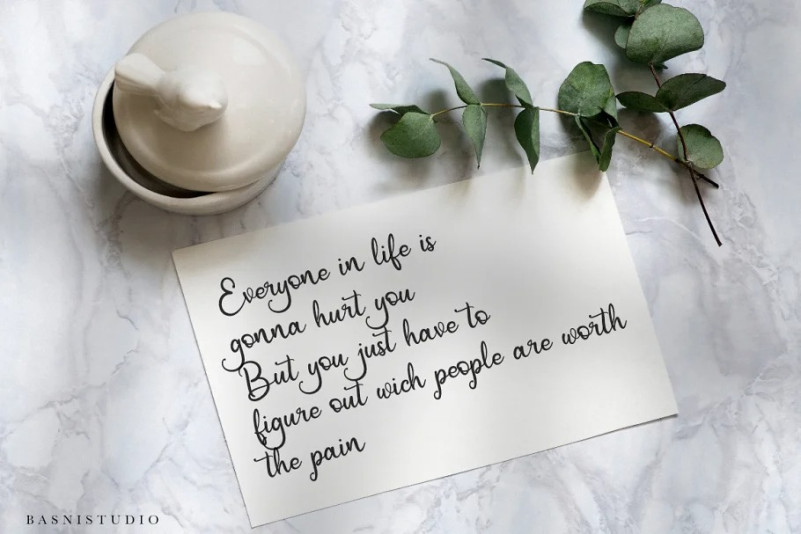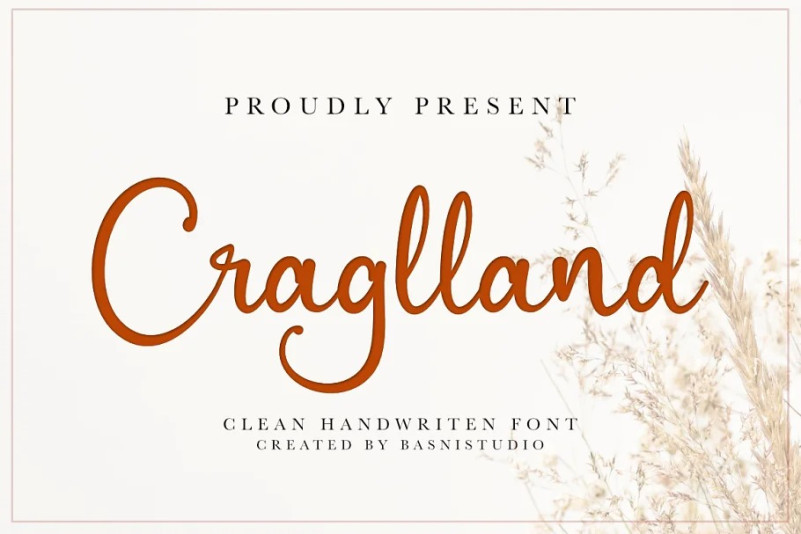
Craglland Font
Craglland Script Font – looks naturally Modern, made with details and precision, perfect for branding, websites, design invitation, and editorial designs. Includes all upper and lower case letters, multilingual support, punctuation, binding and initial and final swash. everything can be easily accessed using software that supports OpenType.